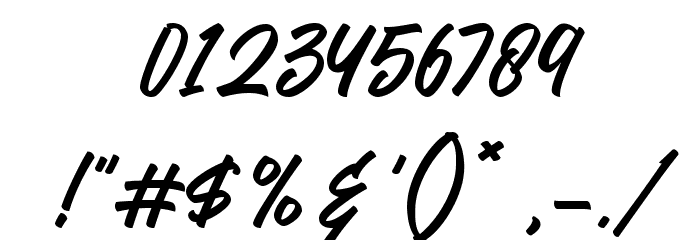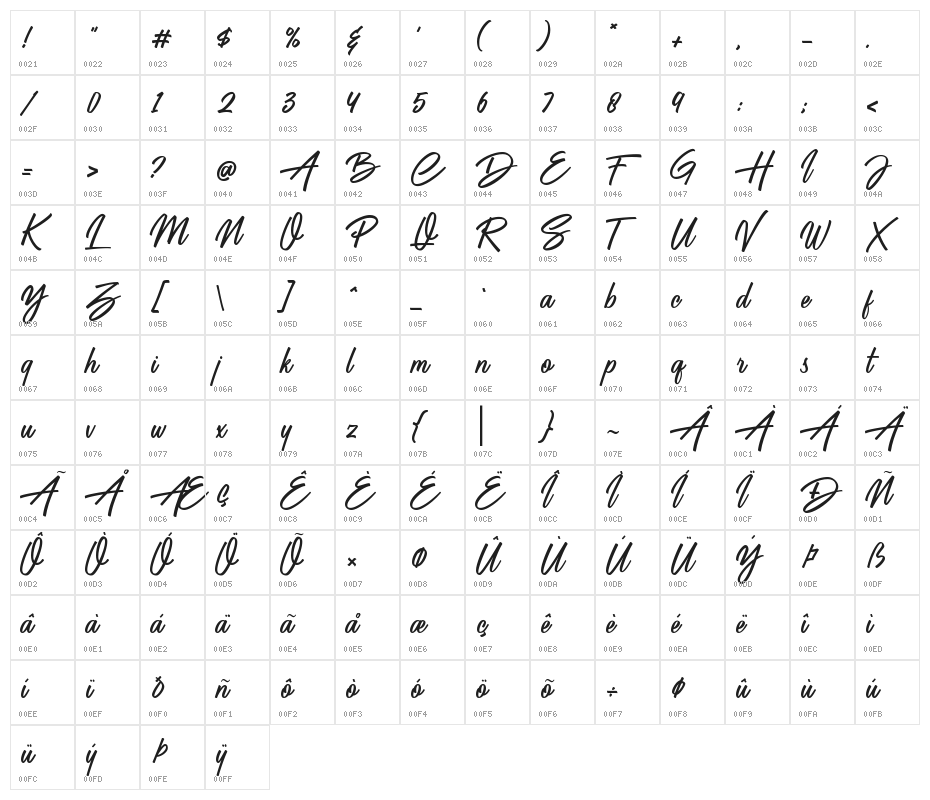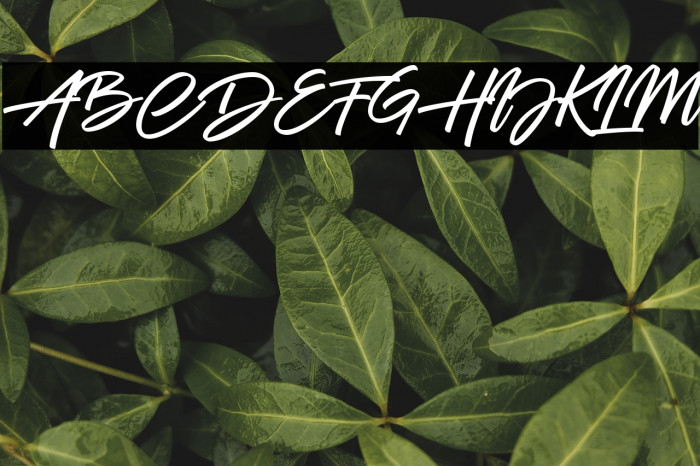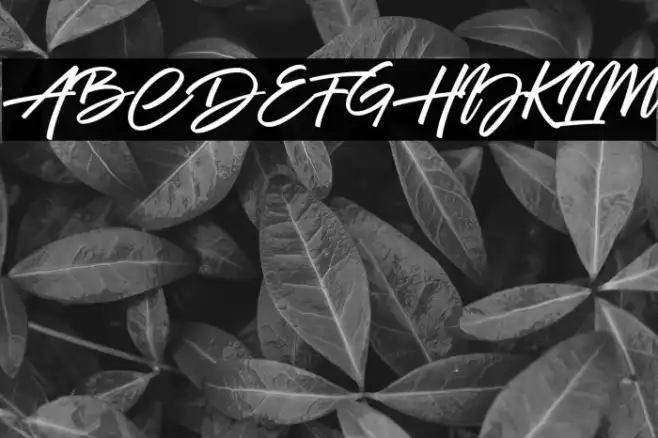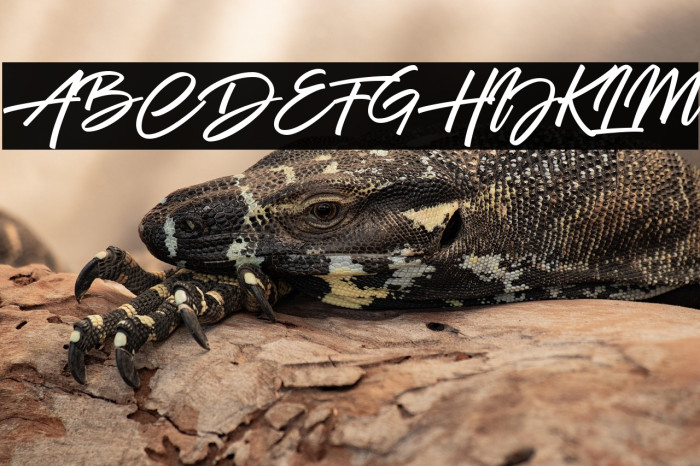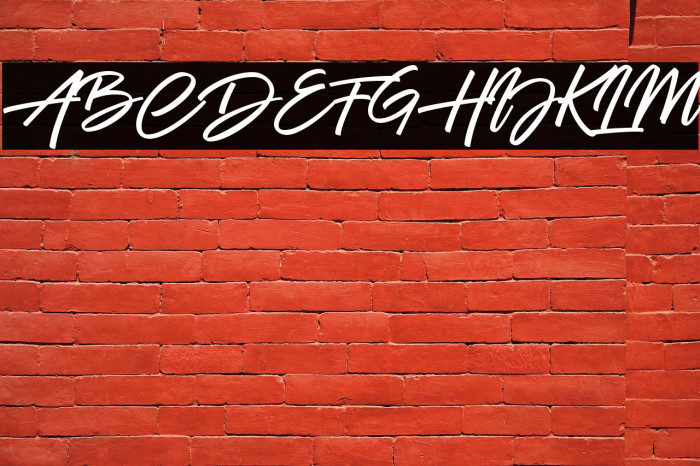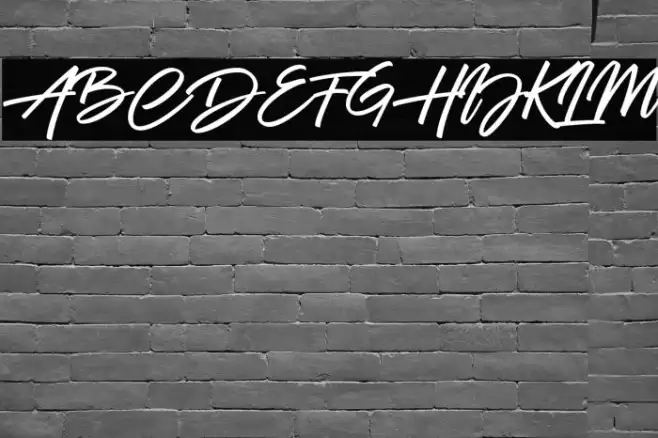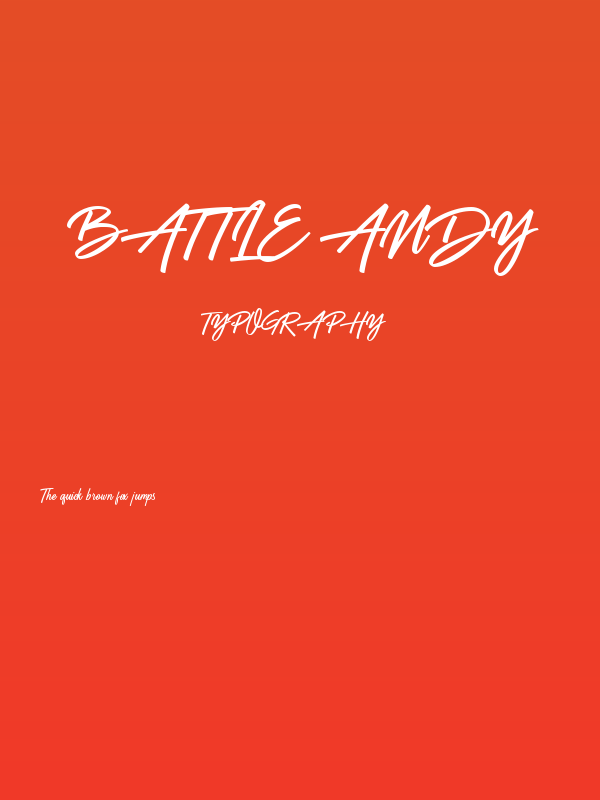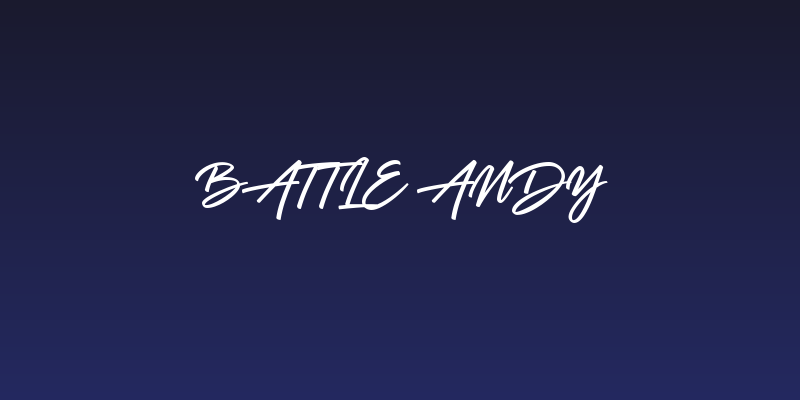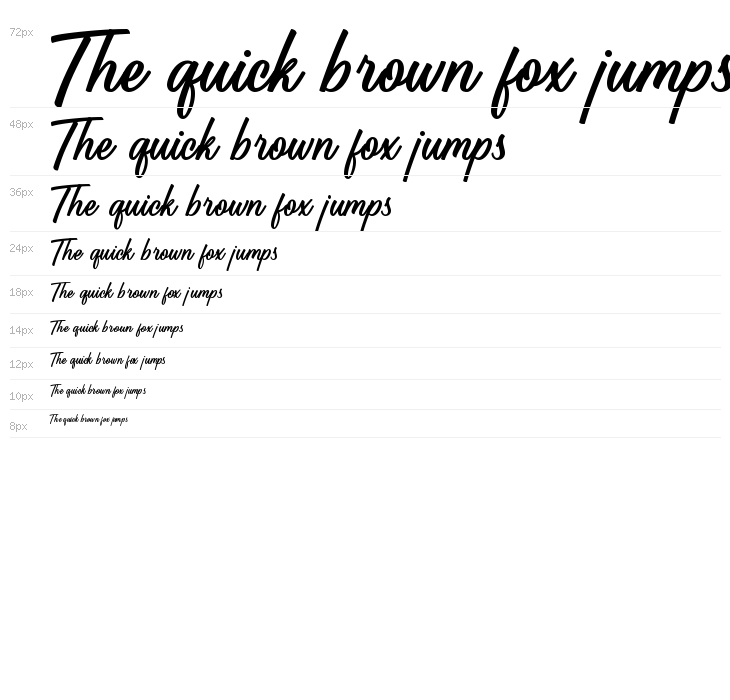
Battle Andy Font
Battle Andy Description
This font features a dynamic and expressive script style, characterized by its fluid and connected letterforms. The strokes are bold and confident, with a slight slant that adds a sense of movement and energy. The uppercase letters are particularly striking, with sweeping curves and elegant loops, while the lowercase letters maintain a consistent flow. The numerals are clear and legible, matching the overall style of the alphabet. Special characters are well-integrated, maintaining the font's cohesive look. This font exudes a modern and stylish vibe, perfect for capturing attention.
| Proposed Projects | Ideal for branding, logos, invitations, and any project that requires a touch of elegance and modernity. |